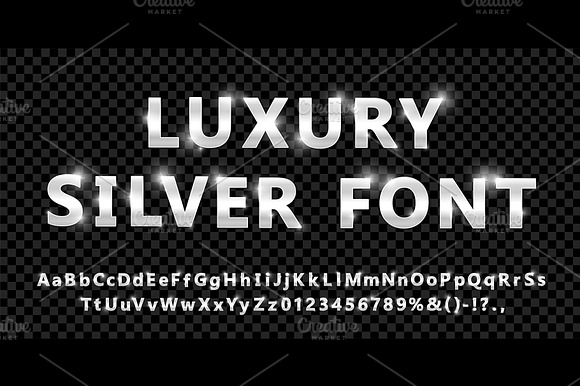
Shiny modern silver font isolated
Shiny modern silver font isolated on transparent background. Vintage platinum numbers and letters with shadows. Detailed 3d alphabet. Typography metal steel bold mockup. Anniversary letters. Vector
Shiny modern silver font isolated by PhotoVector fits naturally into Branding, posters, packaging, typography.